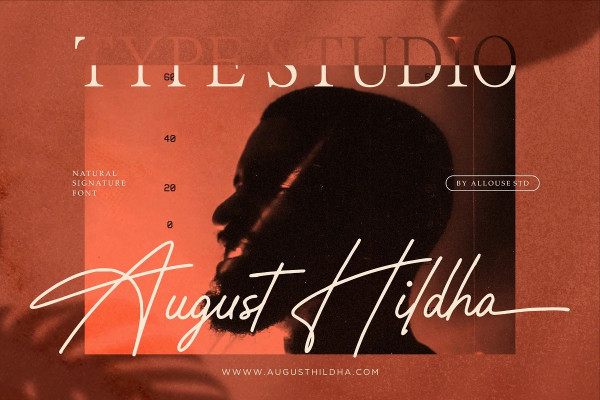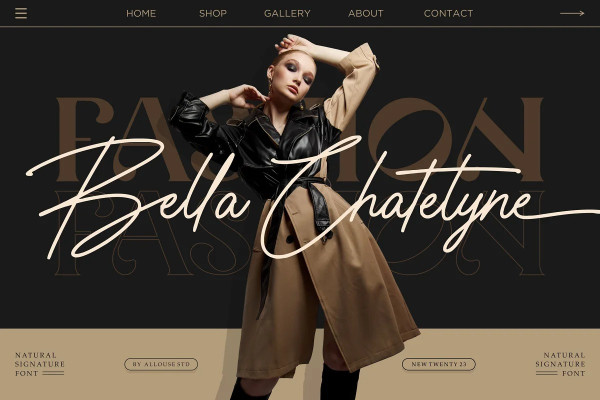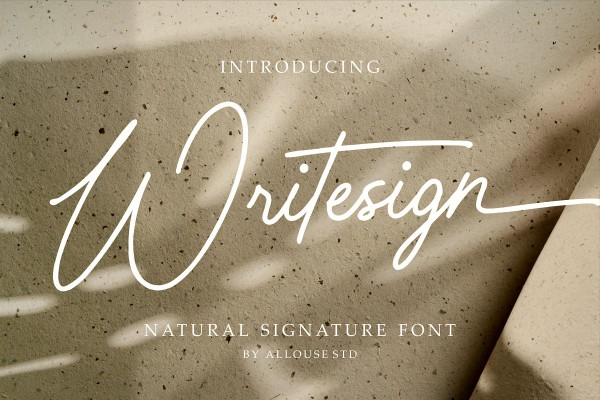
Writesign Font
Writesign Font – A Natural SIgnature Font. It is perfect for any titles, logo, product packaging, branding project, megazine, social media, wedding, or just used to express words above the background.
Writesign also come with Multi-Lingual Support.